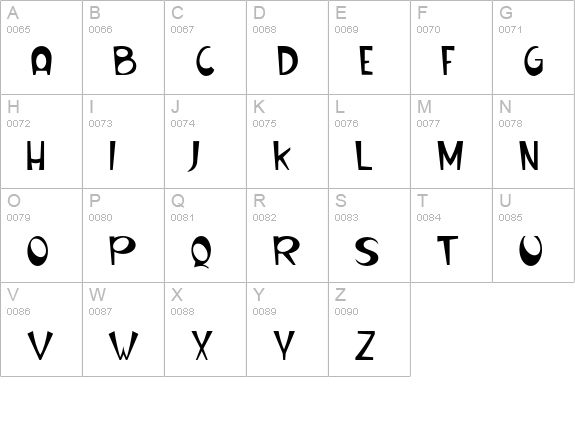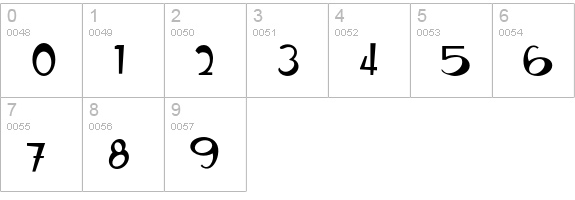
RanchoRound-20guage Font Details
RanchoRound-20guage font is a unique and versatile typeface that is sure to catch the eye with its sleek and modern design. With its rounded edges and clean lines, this font exudes a sense of playfulness and sophistication. Whether you are designing a logo, creating a poster, or working on a branding project, RanchoRound-20guage font will add a touch of elegance and professionalism to your work. Its balanced proportions and legible characters make it suitable for a wide range of applications, from headlines to body text. But what truly sets RanchoRound-20guage font apart is that it is available for free download at FontsMarket.com. Yes, you read that right – this remarkable font can be yours without spending a dime. FontsMarket.com is a trusted source for high-quality fonts, and they are proud to offer RanchoRound-20guage font to their users completely free of charge. Downloading and installing this font is a breeze, and once you have it in your collection, the possibilities are endless. Create stunning designs, captivate your audience, and leave a lasting impression with the help of RanchoRound-20guage font. So don't miss out on this amazing opportunity to enhance your design projects with a top-notch font that is freely available. Head over to FontsMarket.com today and experience the beauty and versatility of RanchoRound-20guage font for yourself.